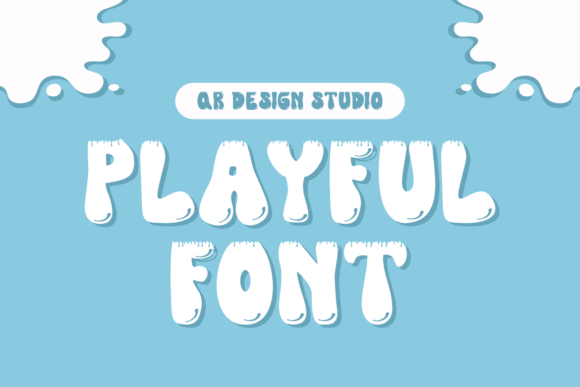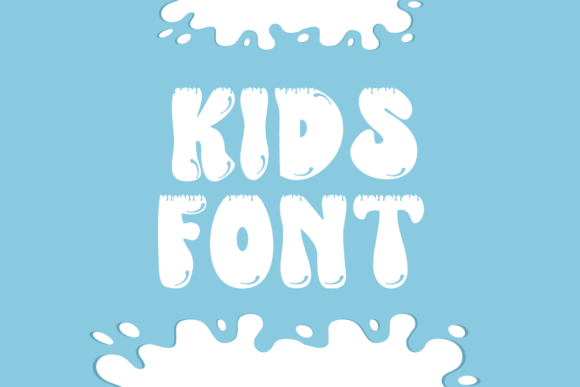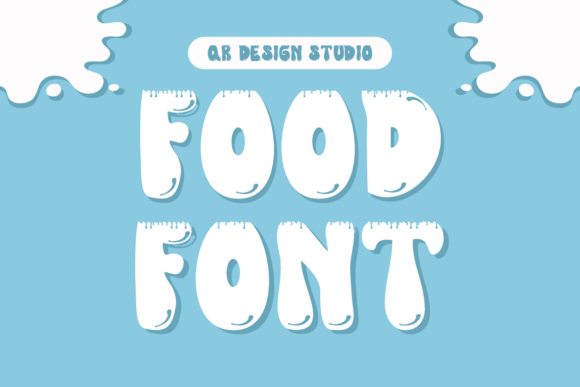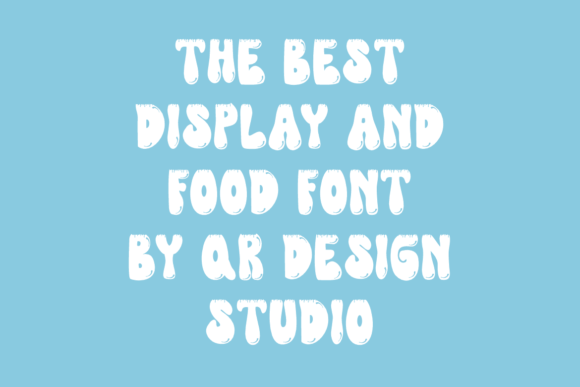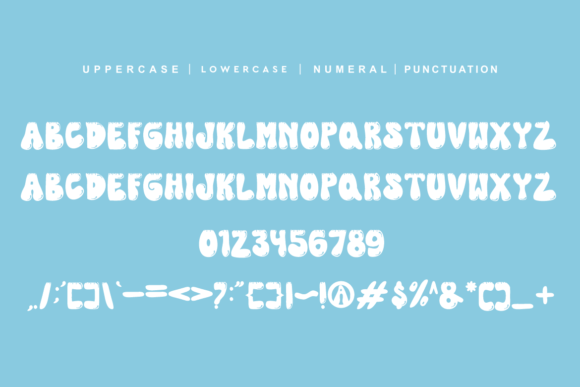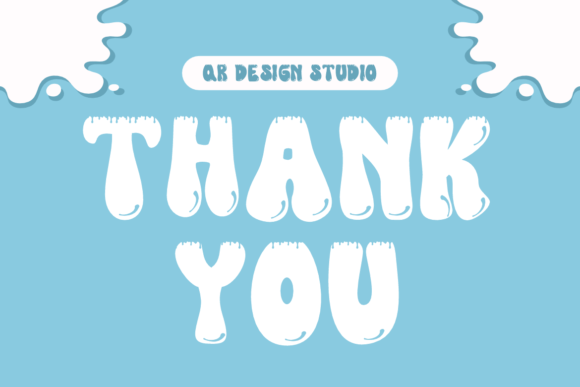
Introducing Drink Milksu Font: The Ultimate Addition to Your Fun and Playful Designs
Are you tired of using the same old fonts in your designs? Do you want to add a touch of youth and joy to your party invitations, social media graphics, or craft projects? Look no further than Drink Milksu Font! This cool, incredibly cute, and bubbly display font is perfect for anyone looking to add a dash of fun and playfulness to their designs.
What is Drink Milksu Font?
Drink Milksu Font is a unique and eye-catching display font that is sure to make your designs stand out. Its bubbly and playful style is reminiscent of childhood memories and carefree days, making it perfect for designs that require a youthful and joyful touch.
Features of Drink Milksu Font
- Cute and Playful Style: Drink Milksu Font features a cute and playful style that is sure to bring a smile to anyone’s face. Its bubbly and fun design makes it perfect for party invitations, birthday cards, and other celebrations.
- High-Quality Design: This font is designed with high-quality and precision, ensuring that it looks great in any size or format. Whether you’re using it for a digital design or a print project, Drink Milksu Font is sure to impress.
- Easily Readable: Despite its playful style, Drink Milksu Font is easily readable, making it perfect for designs that require a clear and concise message.
- Versatile: Drink Milksu Font can be used for a wide range of designs, from party invitations and social media graphics to craft projects and more.
Uses of Drink Milksu Font
So, what can you use Drink Milksu Font for? The possibilities are endless! Here are a few ideas to get you started:
- Party Invitations: Add a touch of fun and playfulness to your party invitations with Drink Milksu Font. It’s perfect for birthday parties, baby showers, and other celebrations.
- Social Media Graphics: Use Drink Milksu Font to create eye-catching social media graphics that are sure to grab attention.
- Craft Projects: Add a personal touch to your craft projects with Drink Milksu Font. It’s perfect for handmade cards, gift tags, and other DIY projects.
- Swimming Gatherings: As mentioned in the font’s description, Drink Milksu Font is perfect for swimming gatherings and other fun events.
Why Choose Drink Milksu Font?
With so many fonts available, why choose Drink Milksu Font? Here are a few reasons why:
- Unique Style: Drink Milksu Font features a unique and eye-catching style that is sure to make your designs stand out.
- Easily Customizable: This font is easily customizable, allowing you to adjust the size, color, and style to fit your design needs.
- Great for Designers and Crafters: Drink Milksu Font is perfect for both designers and crafters, offering a wide range of uses and applications.